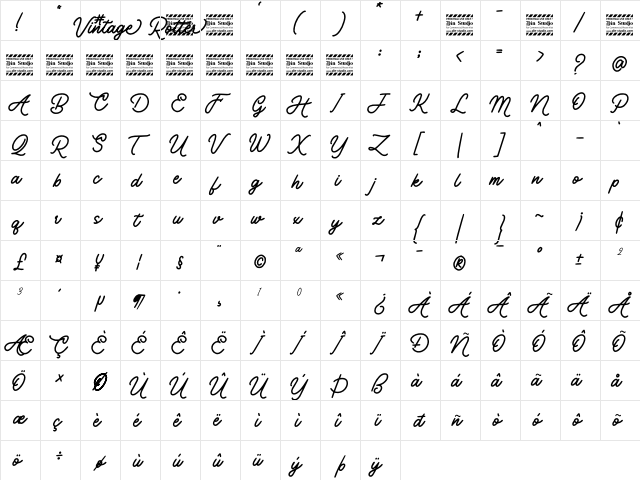
Vintage Rotter Personal Use Regular
Design Context for Vintage Rotter Personal Use Typeface
Vintage Rotter Personal Use wears its vintage influences proudly, with letterforms that recall mid-century signage, classic packaging, and nostalgia-driven design.
Perfect for vintage-inspired branding, retro packaging, nostalgia campaigns, and period-accurate editorial design.
Font Pairing: Combine Vintage Rotter Personal Use with a simple slab or neutral sans — period-accurate companions reinforce the vintage feel without competing for attention.
Pro Tip: Use Vintage Rotter Personal Use for headlines and pull quotes rather than body copy — its personality is best appreciated in short, focused bursts.